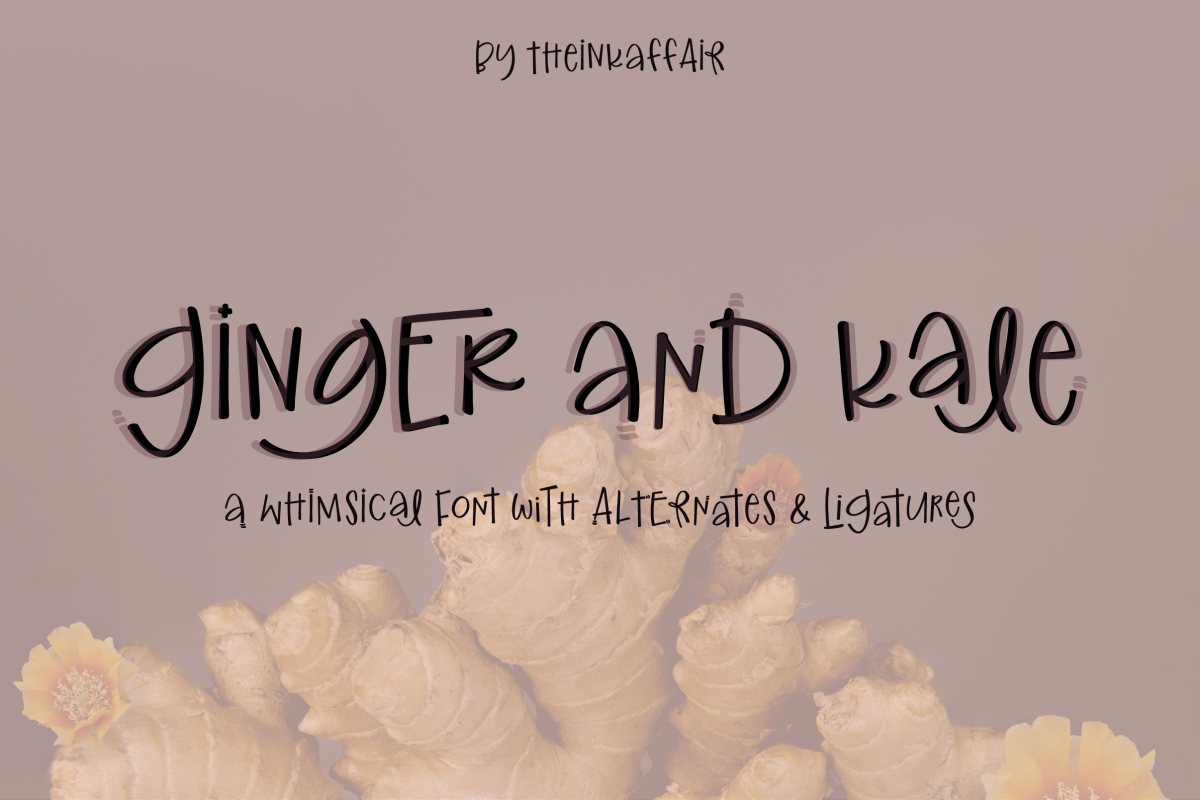
Ginger and Kale - a fun whimsical font
Introducing, Ginger and Kale, a playful mixed case font. Ginger and Kale is perfect for adding an element of fun and playfulness in your designs and works great for any design project!
It comes with a set of decorated alternates and over 45 ligatures!